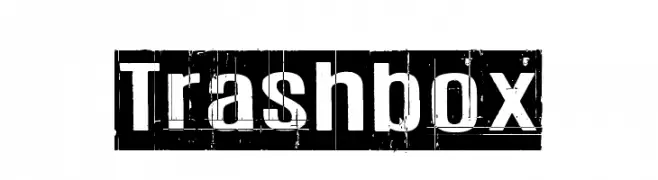
• Trashbox
A bold, distressed font with a grunge, industrial aesthetic.
• Trashbox
A bold, distressed font with a gritty, urban aesthetic and high contrast.